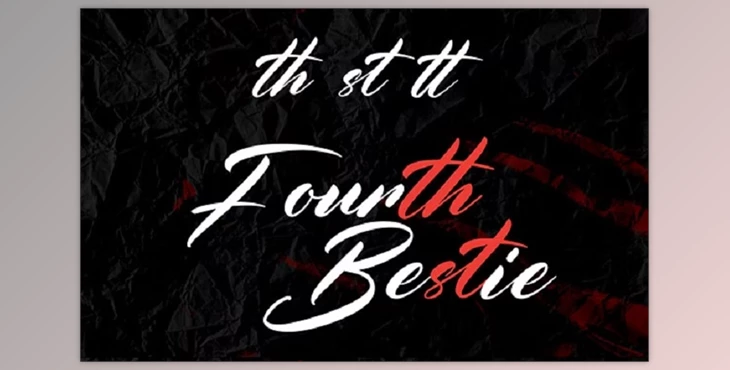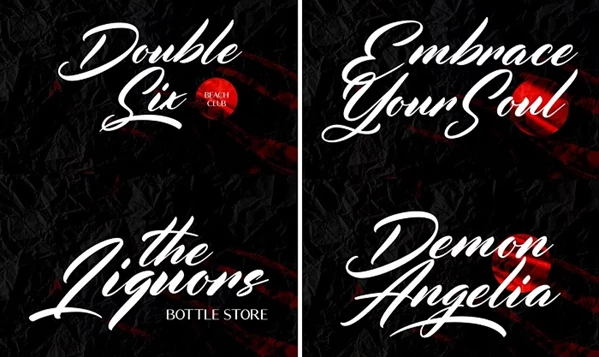
Corynette Signature Script Font offers an elegant handwriting script font with medium-contrast strokes and playful character, enriched with alternates and ligatures for artistic flexibility.
Supporting over 100 languages, it suits various design needs such as logos, social media, movie or book titles, and both brief and lengthy texts.